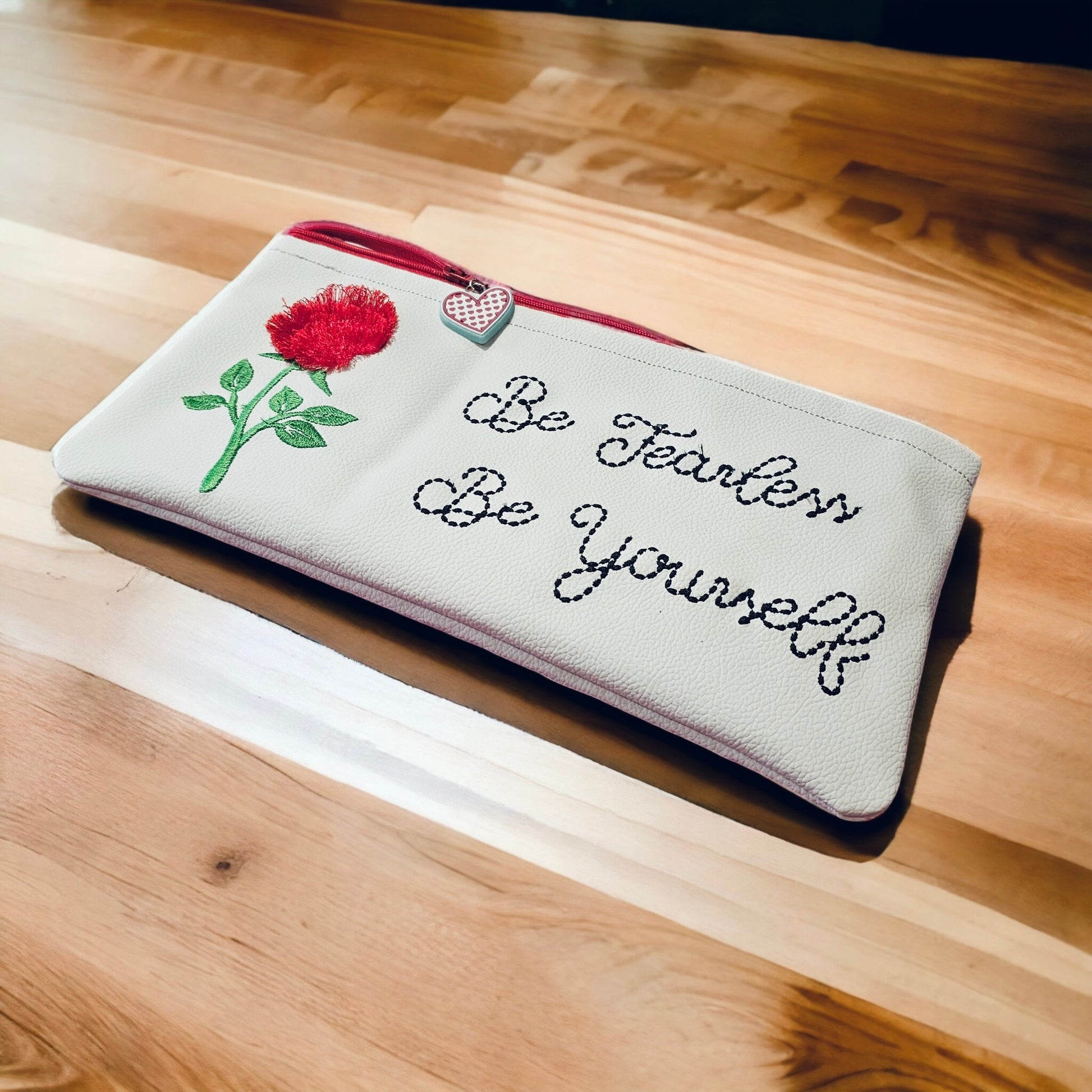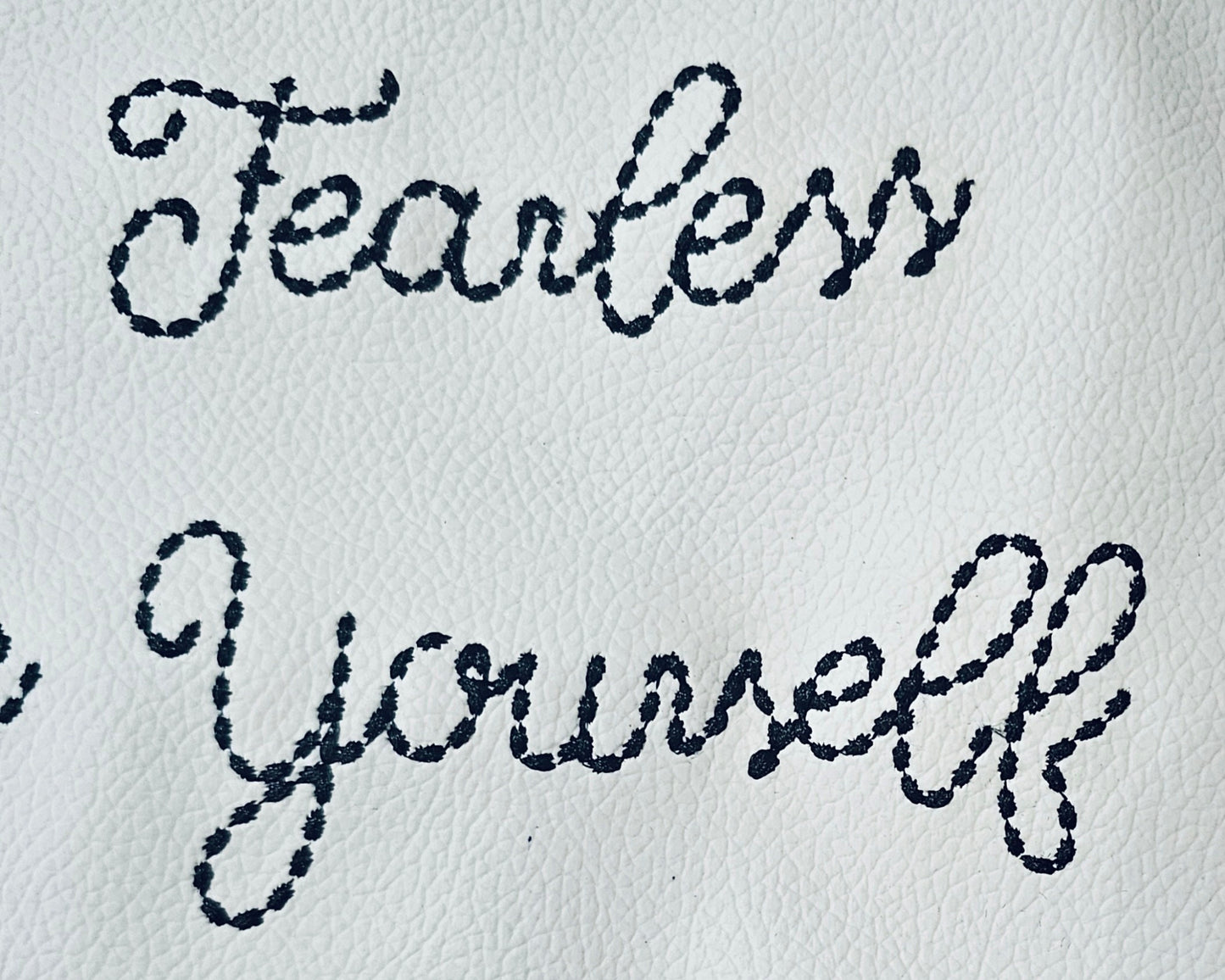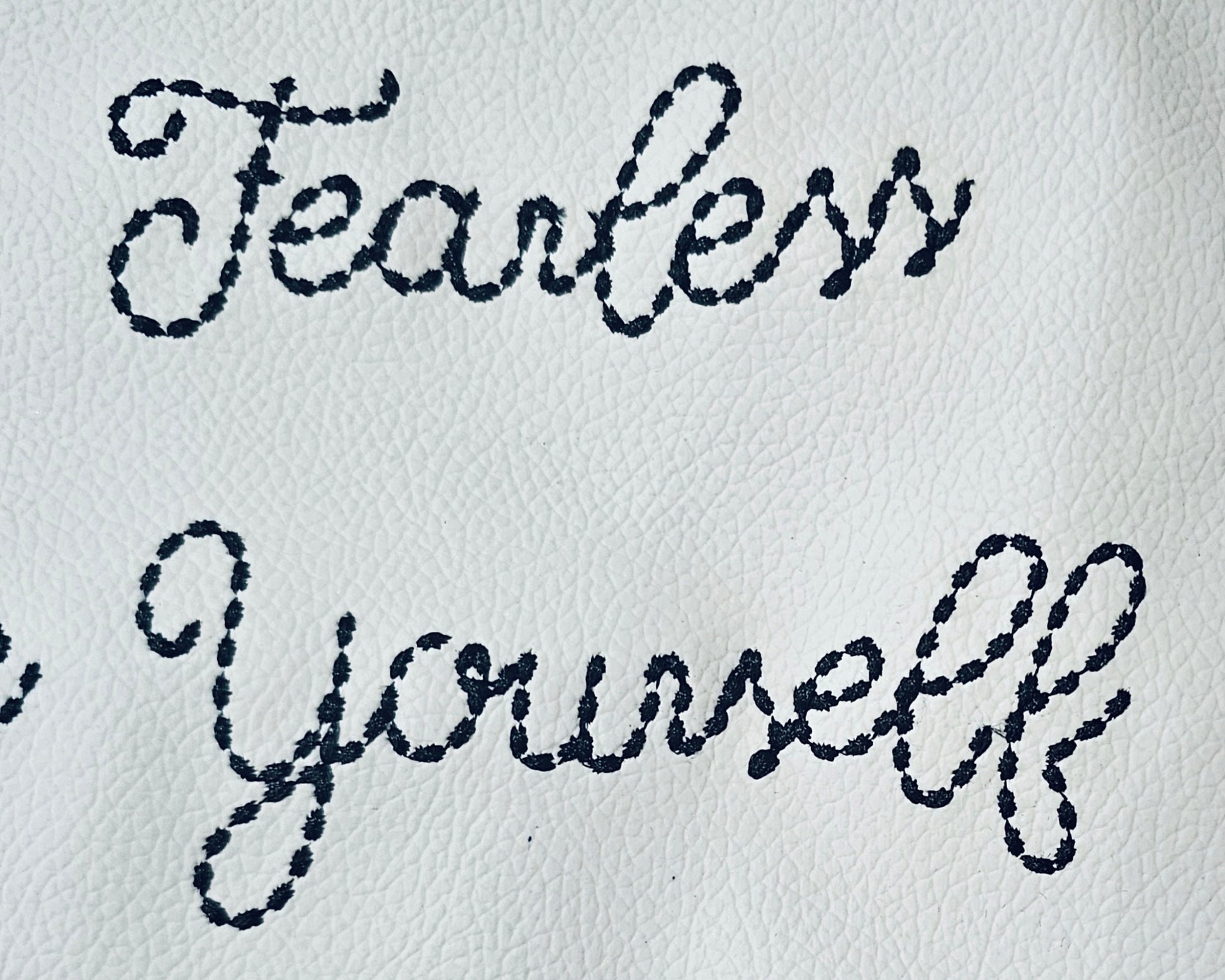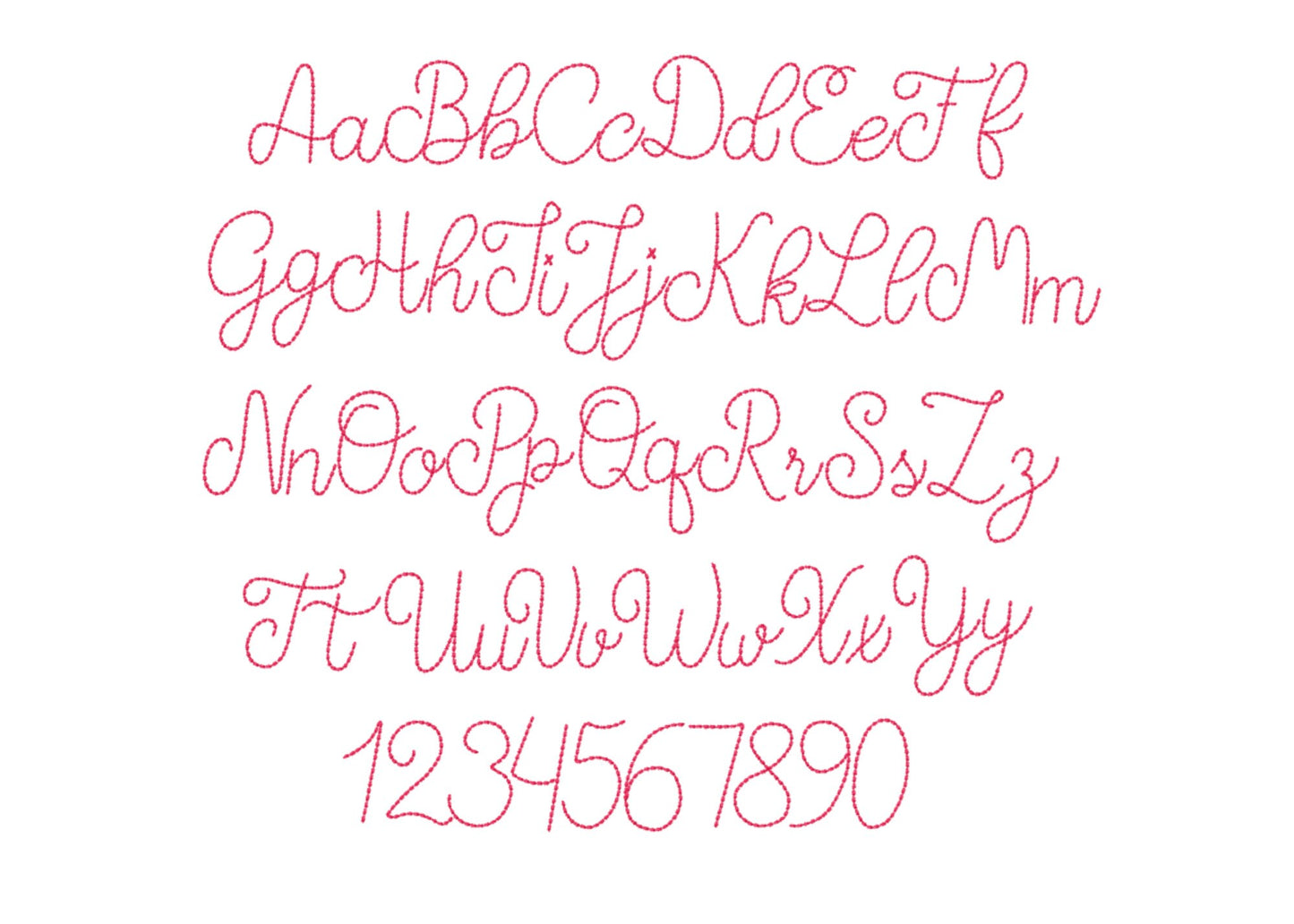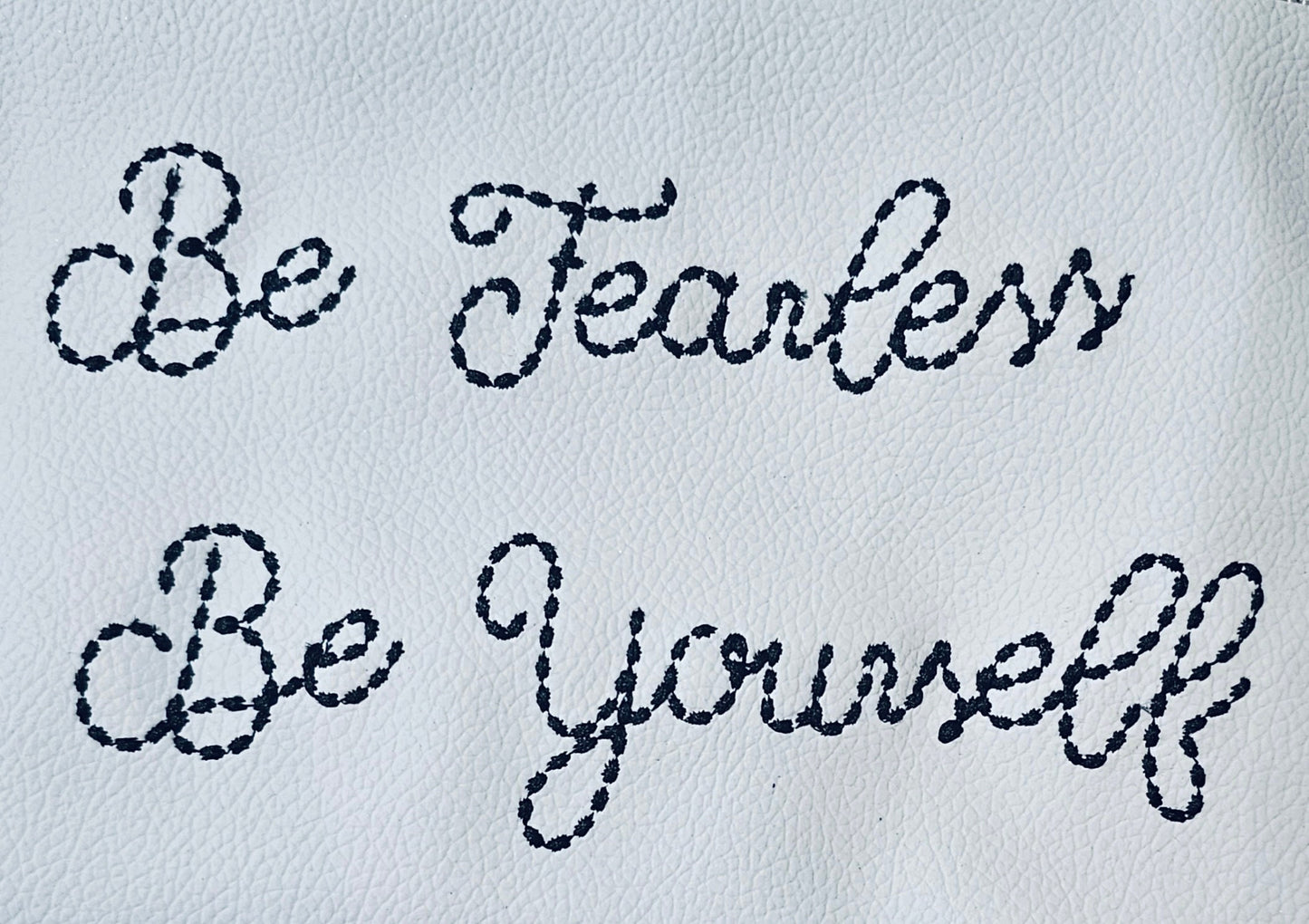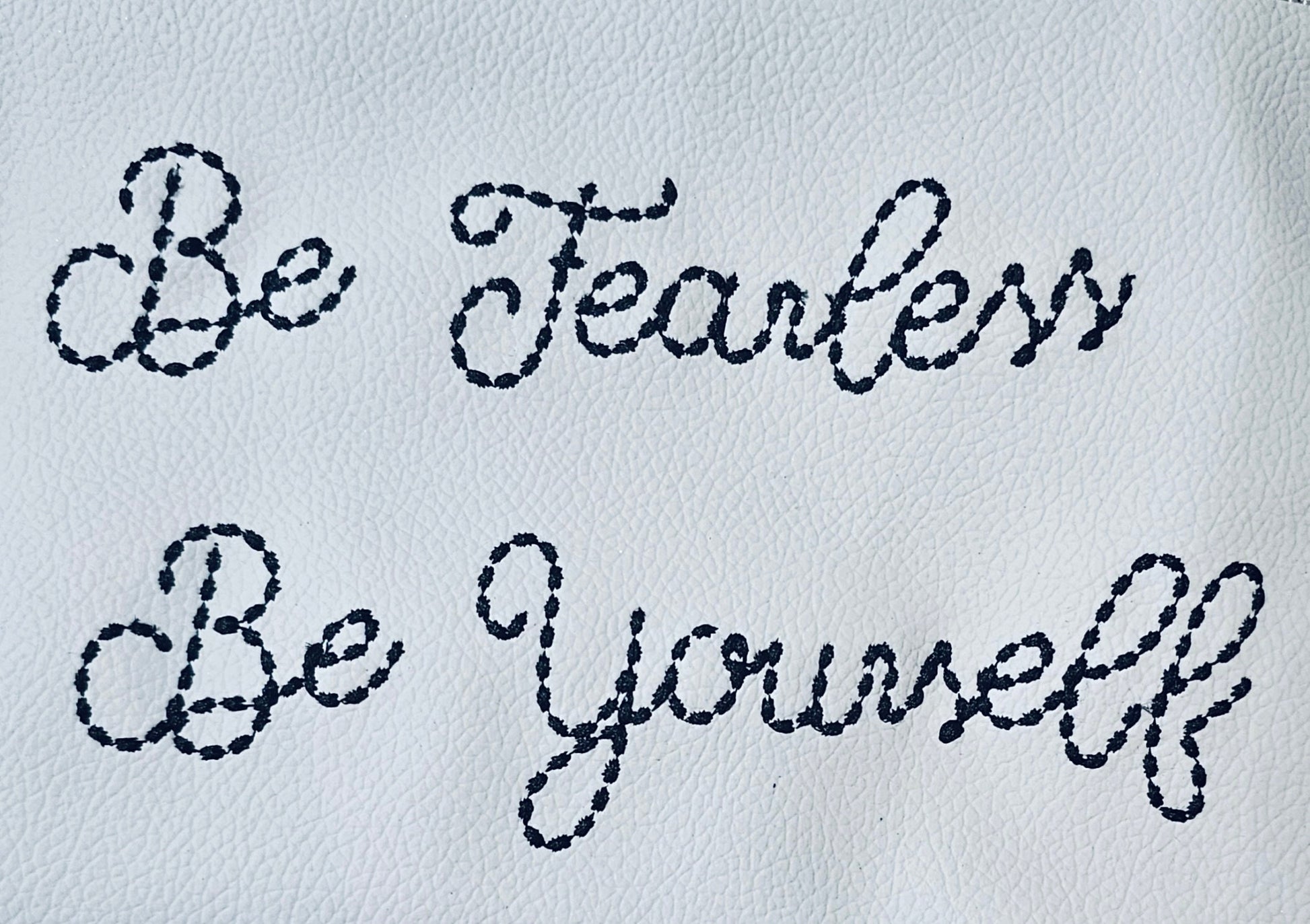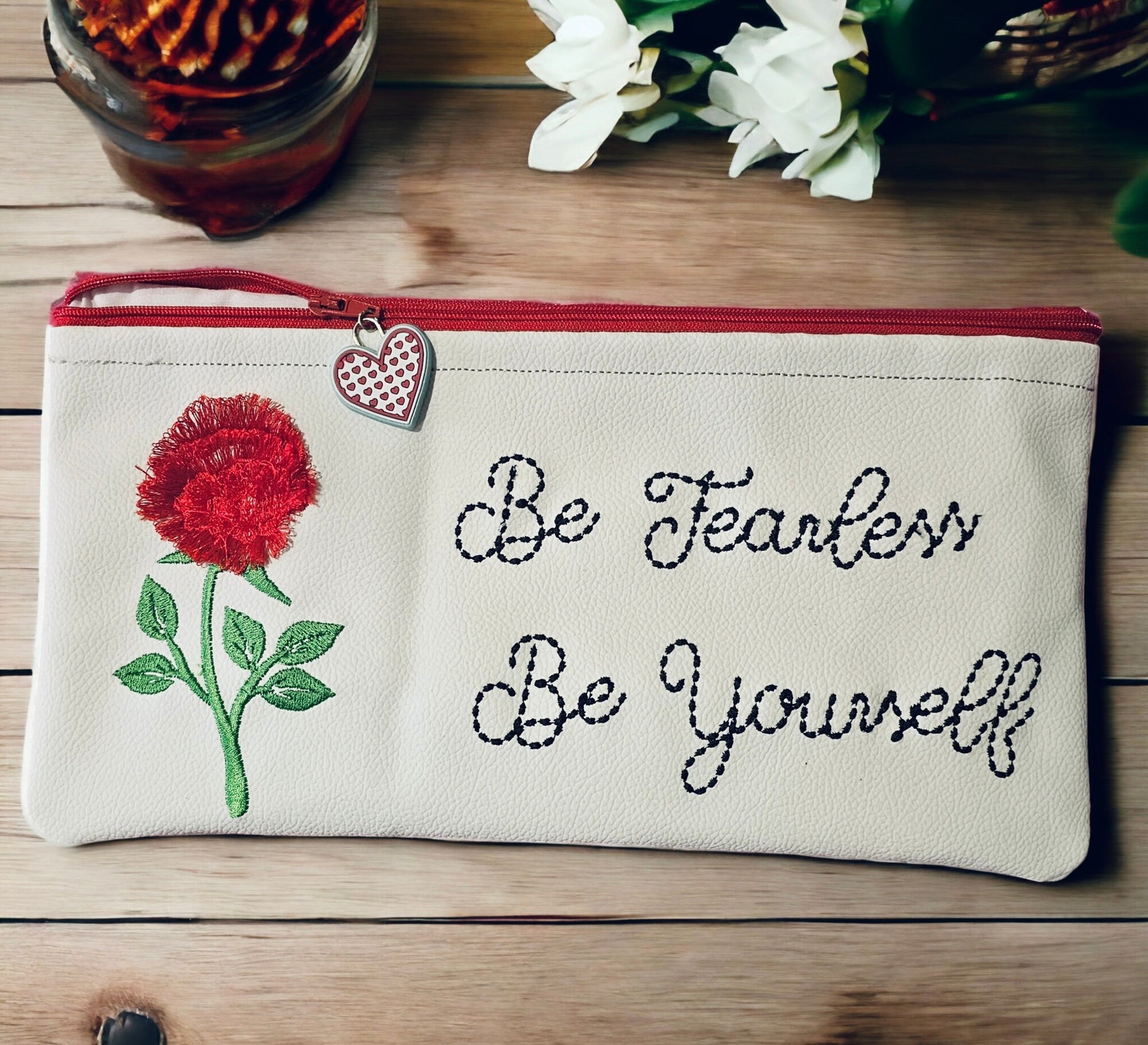
Hand Stitch Effect Bean Stitch Font
Or click to open the linkA handwritten bean stitch font that looks stitched by hand. Sweet for kids' names, monograms, sayings and gifts.
Uppercase and lowercase letters, numbers 0 to 9, an ampersand, slash and an alternate s, in seven sizes: 1.1, 1.5, 1.9, 2.3, 3, 3.7 and 4.6 inches.
- Hand stitch look bean stitch font
- Uppercase and lowercase letters, numbers 0-9
- 7 sizes, 1.1 to 4.6 in